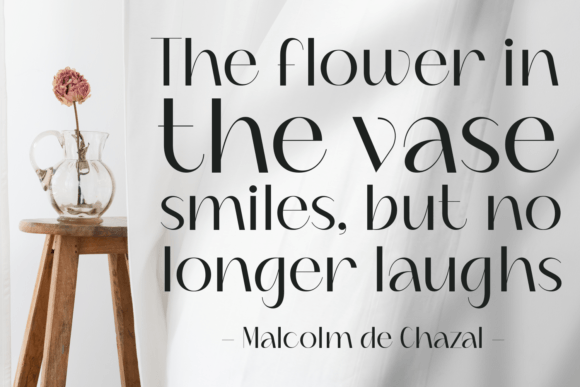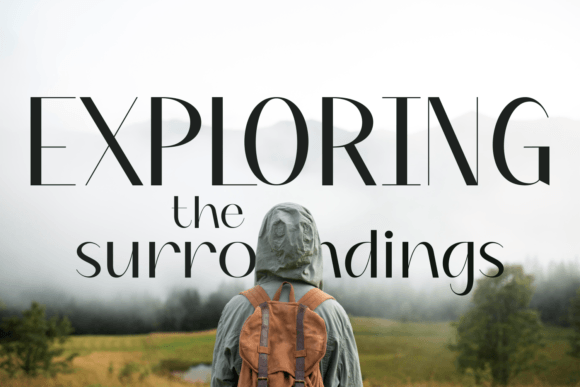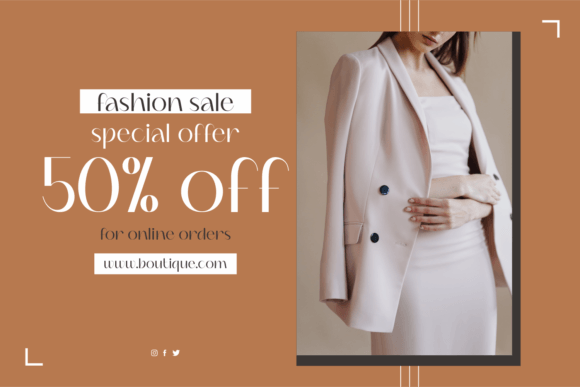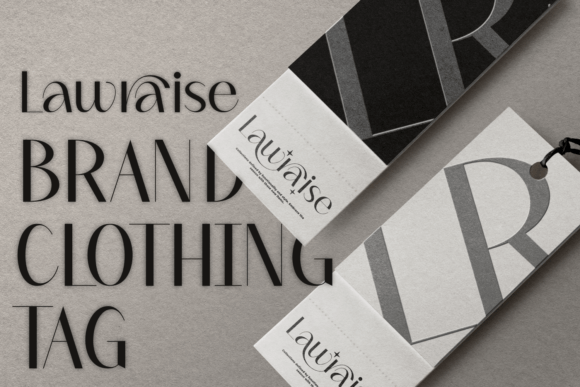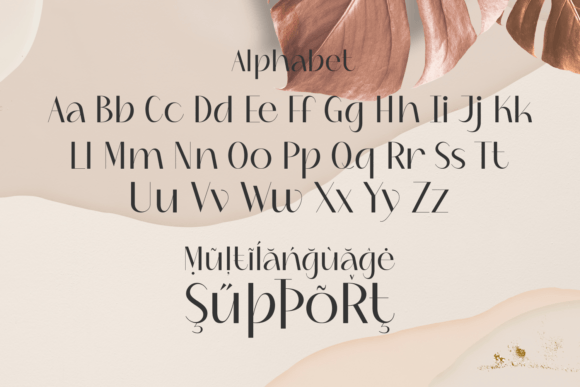
Introduction to Lawraise Font
Have you ever found yourself in the middle of a creative project, staring at a blank screen, and desperately searching for the perfect font to elevate your design? This is a moment we’ve all been there, and it’s a moment that can make or break the entire project. For designers, the right font can be the difference between a good design and a great one.
That’s why we’re excited to introduce you to the Lawraise Font, a stunning sans-serif font that’s sure to take your creations to the next level. With its elegant feel and impeccable shape, this font is a valuable addition to any designer’s toolkit. Whether you’re working on a high-quality logo, a website with a transparent background, or a branding project, the Lawraise Font is a reliable design resource that’s sure to impress.
Key Features of Lawraise Font
- High-quality design for creative projects, offering a professional look and feel.
- Transparent background, making it easy to customize and integrate with various design resources.
- High-resolution design, suitable for print and digital applications, with a resolution of 300 DPI.
- Unique, modern design that stands out from traditional fonts, perfect for creative projects that require a fresh look.
Honest Review: Lawraise Font
As a designer, I’m always on the lookout for high-quality fonts to enhance my creative projects. Recently, I came across the Lawraise Font, which I was excited to try out.
- ✨ Unique and modern design aesthetic that adds a touch of sophistication to any project
- ✨ Highly legible, even at smaller font sizes, making it perfect for body text
- ✨ Includes a transparent background option, allowing for seamless integration with any design
- ⚠️ Limited character set, which may not be suitable for complex or technical writing
- ⚠️ Not all languages are supported, which may be a limitation for designers working on international projects
Overall, I’m impressed with the Lawraise Font. It’s a great addition to any designer’s toolkit, offering a high-quality, modern design aesthetic that’s perfect for a variety of creative projects. While it may have some limitations, I think it’s well worth the free download.
Tips for Getting the Most Out of Lawraise Font
Use the Lawraise Font on a high-quality design project to add a touch of sophistication. You can also use it with a transparent background to create a unique design element. Experiment with different font sizes and styles to find the perfect combination for your creative project.
The Lawraise Font is ideal for use in brochures, flyers, and other marketing materials. You can also use it in presentations, reports, and other documents where a high-quality font is required.
Alternatives to Lawraise Font
Great Vibes is a high-quality, elegant script font suitable for creative projects that require a touch of sophistication. It’s ideal for designing invitations, wedding cards, and other formal documents. Great Vibes features a transparent background, making it easy to layer with other design elements.
Compared to Lawraise Font, Great Vibes has a more refined and delicate look, making it suitable for projects that require a touch of luxury. It’s available for free download and can be used for both personal and commercial purposes.
Crimson Text is a high-quality serif font designed for use in body text and headings. It’s perfect for creative projects that require a high level of readability and sophistication. Crimson Text features a transparent background and is available for free download.
Compared to Lawraise Font, Crimson Text has a more classic and timeless look, making it suitable for projects that require a sense of tradition. It’s an excellent choice for designing books, magazines, and other printed materials.